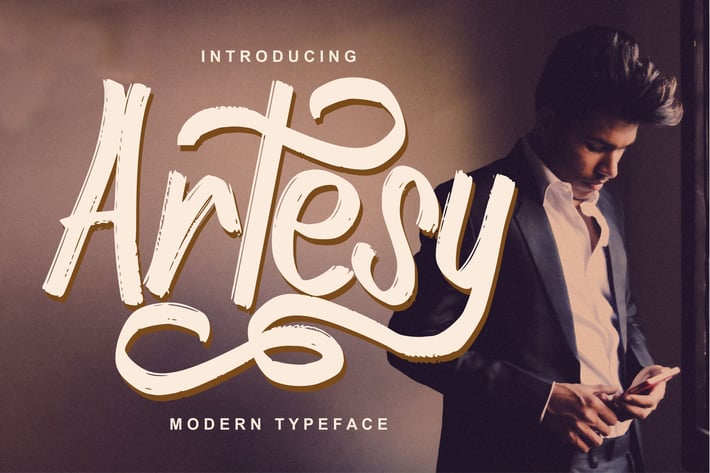
Artesy | Modern Typeface Font
Artesy | Modern Typeface Font with a calligraphy style, So beautiful on invitation like greeting cards, branding materials, business cards, quotes, posters, and more!